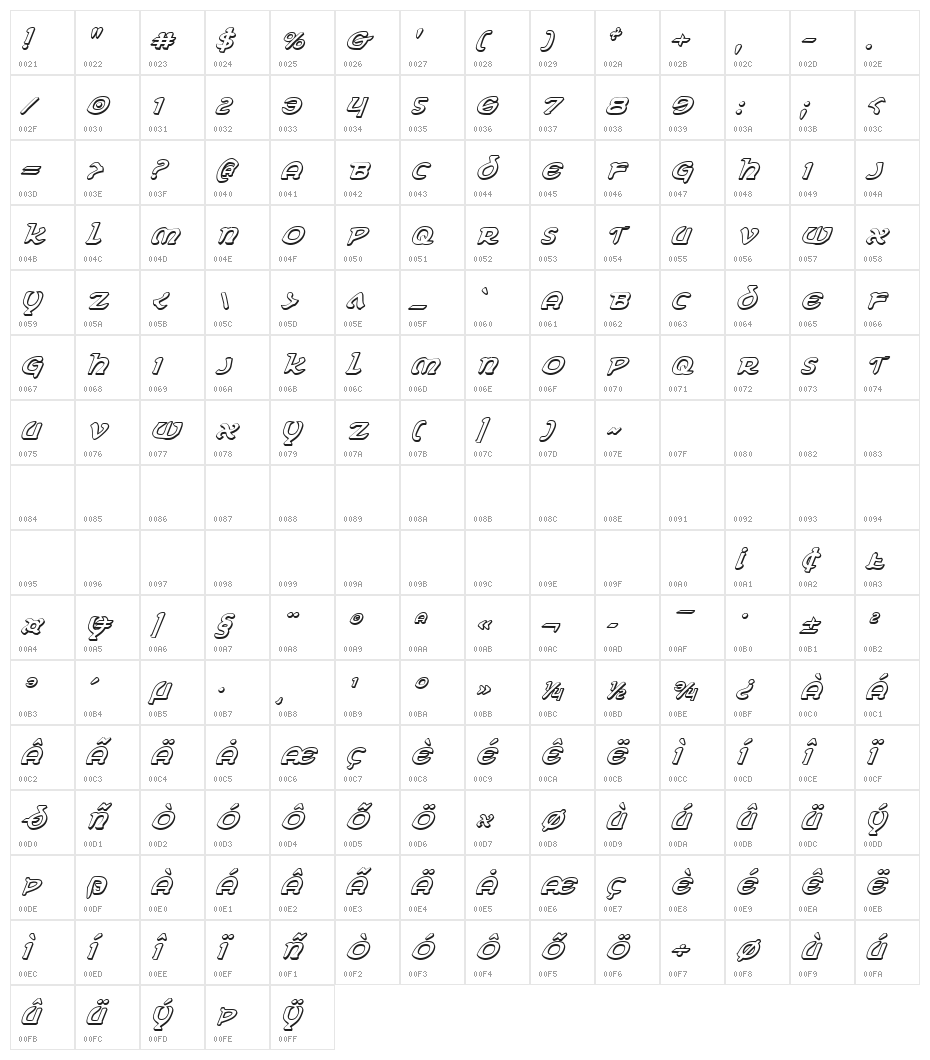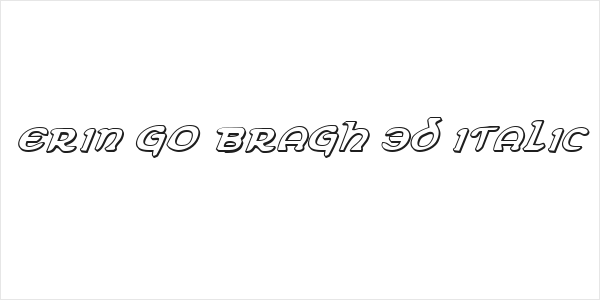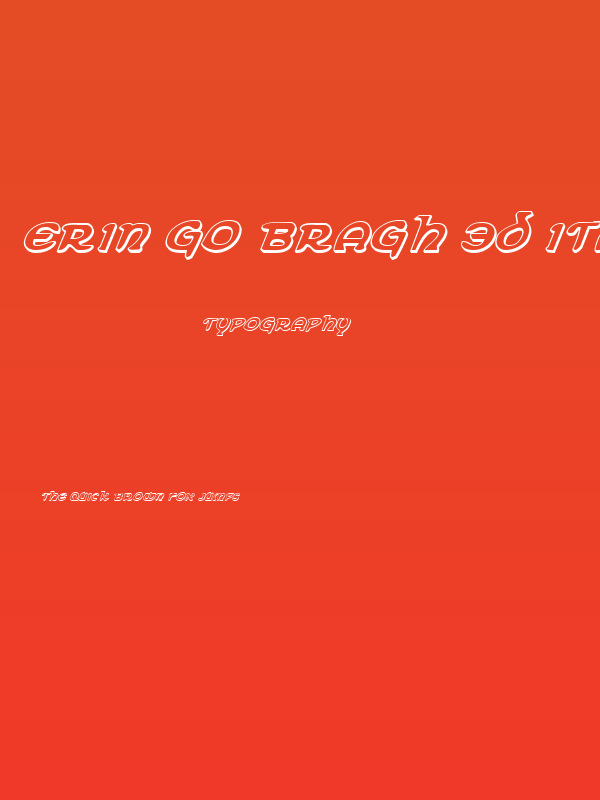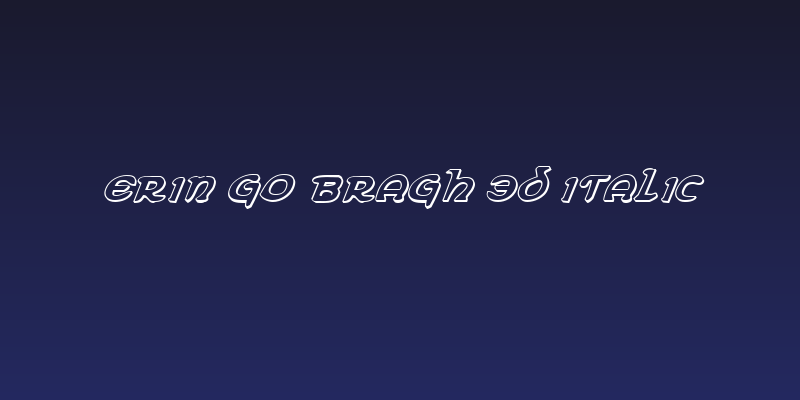
Erin Go Bragh 3D Italic Font
Erin Go Bragh 3D Italic Description
This font features a bold, three-dimensional style with a playful and dynamic appearance. The letters are italicized, giving them a forward-leaning stance that suggests movement and energy. Each character is outlined, enhancing the 3D effect and making the text stand out prominently. The font combines elements of both serif and sans-serif styles, with some letters having slight curves and others maintaining a more angular look. The overall design is eye-catching and suitable for creative projects that require a touch of fun and excitement.